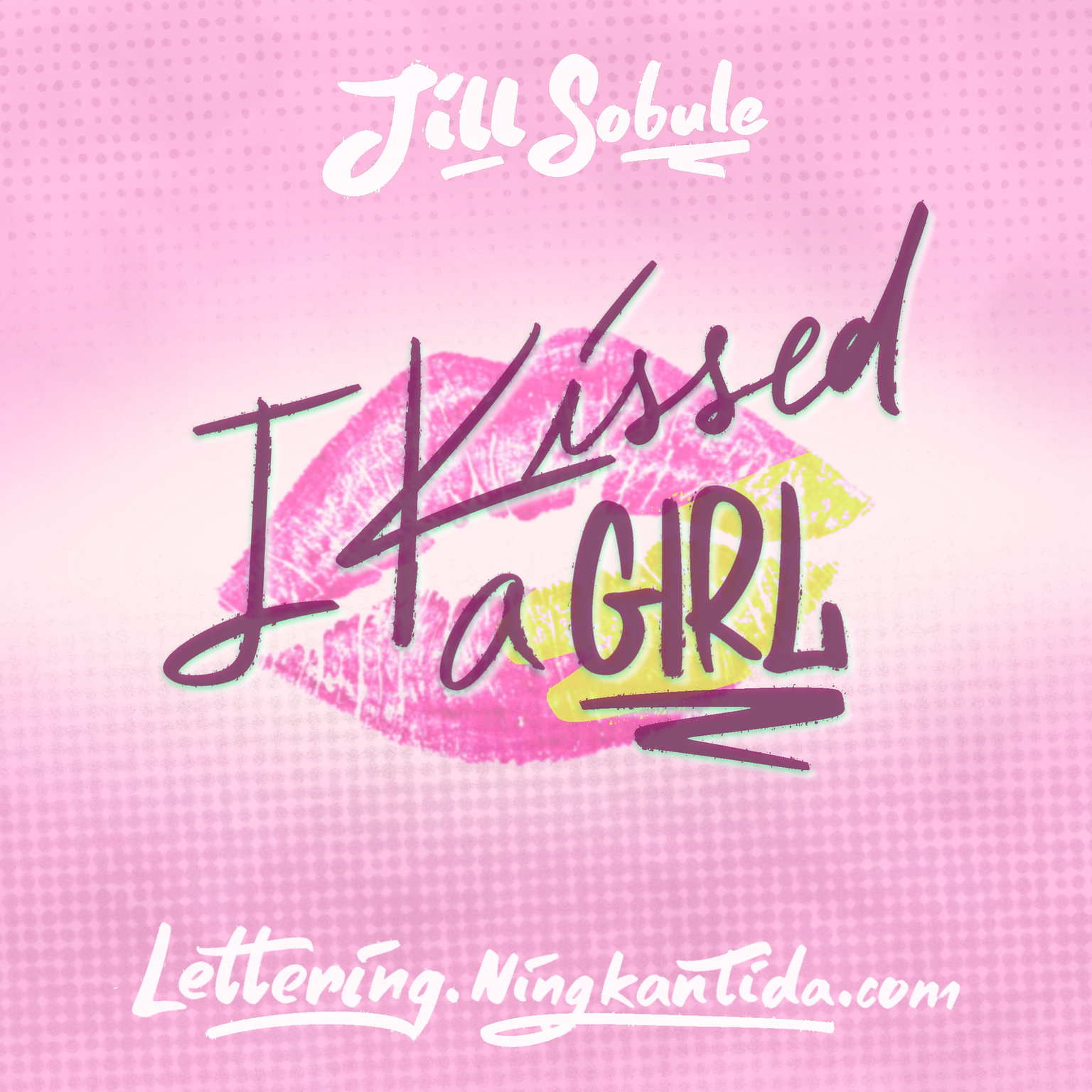
Pride Month Music 03-I Kissed a Girl by Jill Sobule
Music Lettering
As we approach the end of Pride Month, I’m creating lettering pieces celebrating music related to LGBTQIA+ community. My goal is to expose people to good music and artists while also help bringing the community filled with diversity together, since music is like a universal language that can touch anyone’s heart.
Today, I chose the song “I Kissed a Girl”—no, not that Katy Perry song, but the one from way back in 1995 by Jill Sobule. What I love about this song is how openly and honestly it talks about a woman kissing another woman through such a simple and relatable story: two friends hanging out, sharing drinks, and then sharing a kiss. It’s fun, lighthearted, and sweet, portraying queer attraction as something natural and real—without making a big deal out of it.
The song reminds me that it’s okay to explore your identity, to be curious, and to discover—or even carve out—your your true identities. Being true to yourself and honest about what you want is completely normal, even if it doesn’t fit society’s usual expectations. That kind of openness from this song can help people feel seen, hopeful, and less alone on their journey.
For the lettering, I wanted to capture that same softness and sweetness, while adding a bit of spontaneity through quick, handwritten styles—reflecting both tenderness and the excitement of discovery.